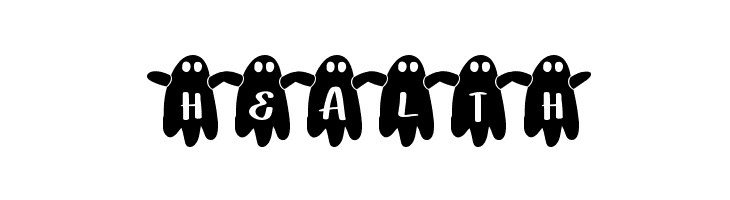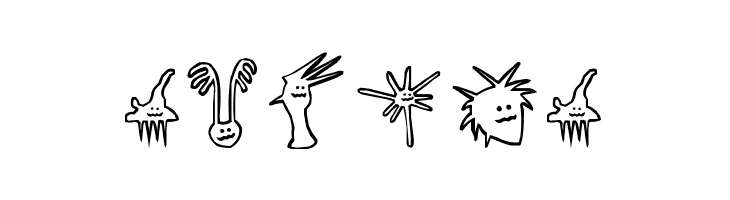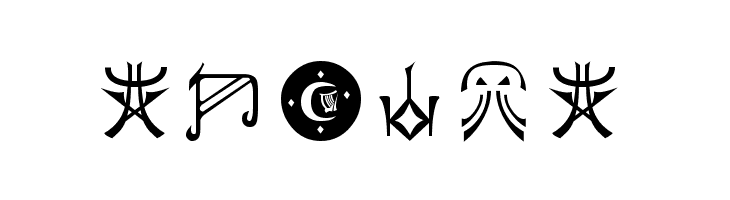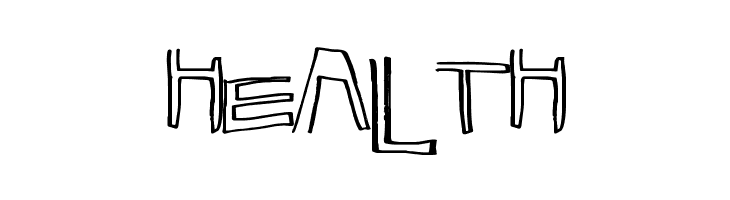
A playful and casual handwritten font with fluid, connected strokes.
A playful, ghost-themed decorative font perfect for Halloween projects.
A modern sans-serif font with clean lines and geometric shapes.
A bold, modern sans-serif font with excellent legibility and balanced character spacing.
A modern sans-serif font with clean lines and balanced proportions.
A playful, hand-drawn font with a whimsical and informal style.
A chaotic, graffiti-inspired font with jagged, hand-drawn letters.
An elegant, flowing script font with graceful loops and cursive strokes.
An intricate, decorative font with mystical and fantasy-inspired symbols.